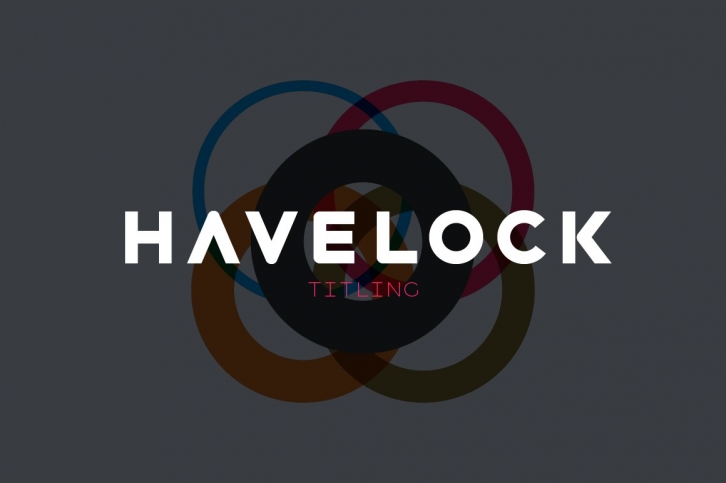
Havelock Titling builds upon the essential geometry of Havelock, adding five weights for spacious, authoritative text. Made to combine with Havelock's display capabilities for more traditional reading scenarios.